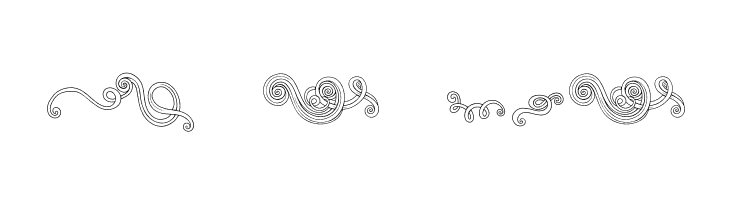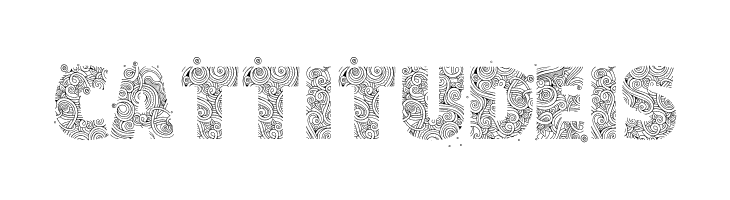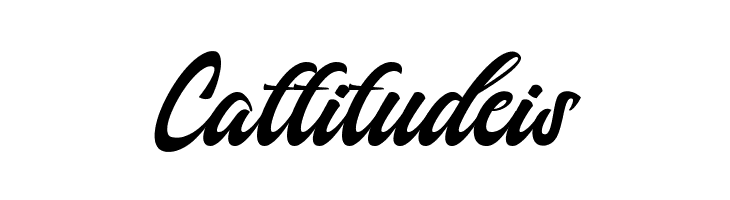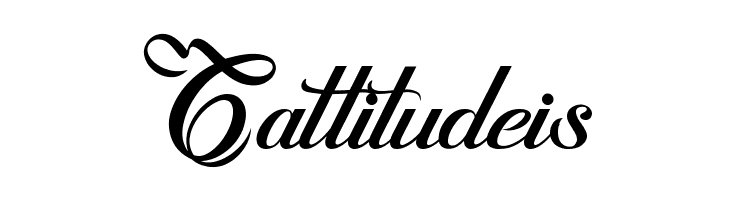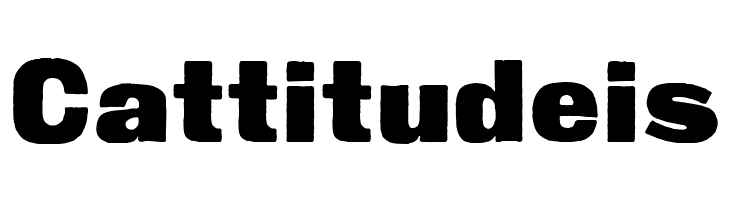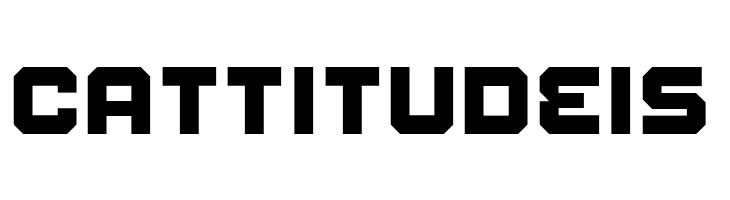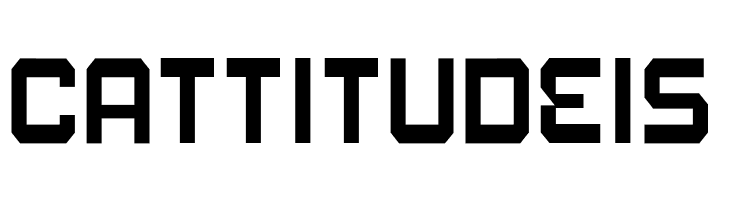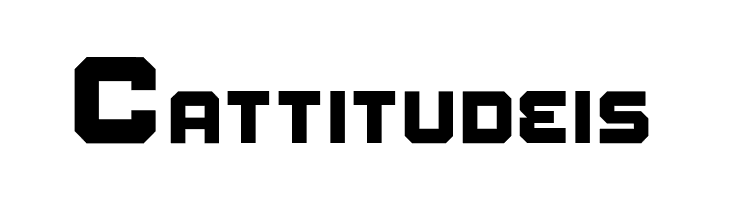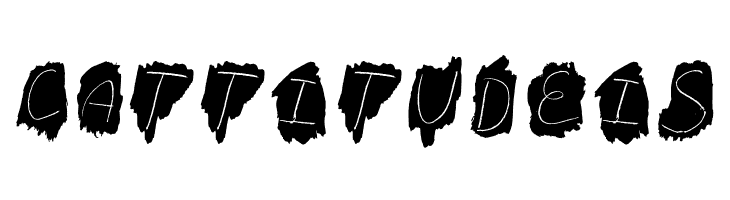
A bold, decorative font with intricate patterns and vintage flair.
A playful, rounded font with bold, smooth curves and consistent thickness.
A bold, dynamic font with high contrast and a modern, italicized style.
A bold, retro-inspired font with geometric and playful elements.
A bold, retro-inspired font with a playful inline style.
A bold, slanted font with a dynamic and energetic style.
A bold, italicized font with a dynamic and sporty style.
A bold, slanted font with a dynamic and energetic style.
A bold, slanted font with thick strokes and a dynamic, energetic style.
A bold, angular font with a futuristic and edgy design.
A bold, angular font with a futuristic and aggressive design.
A bold, dynamic font with high contrast and a modern, artistic style.
A bold, playful font with floral patterns and rounded characters.
A bold, dynamic font with thick strokes and sharp angles, perfect for impactful designs.
A bold, expressive script font with flowing, cursive letterforms.
A bold, angular font with a dynamic slant and strong presence.
A bold, rounded sans-serif font with a modern and approachable style.
An intricate, decorative font with swirling patterns and bold characters.
Intricate swirling ornaments with elaborate loops and curls.
A bold, playful font with a dotted texture and rounded, whimsical characters.
A classic serif font with a calligraphic touch, offering elegance and versatility.
A classic italic serif font with moderate contrast and elegant style.
A bold, hand-drawn font with dynamic, irregular strokes and a playful style.
A bold, graffiti-inspired font with a rugged, brush-like texture.
A decorative font with characters designed to resemble intricate feathers.
Minimalist, tall sans-serif with rounded, playful forms.